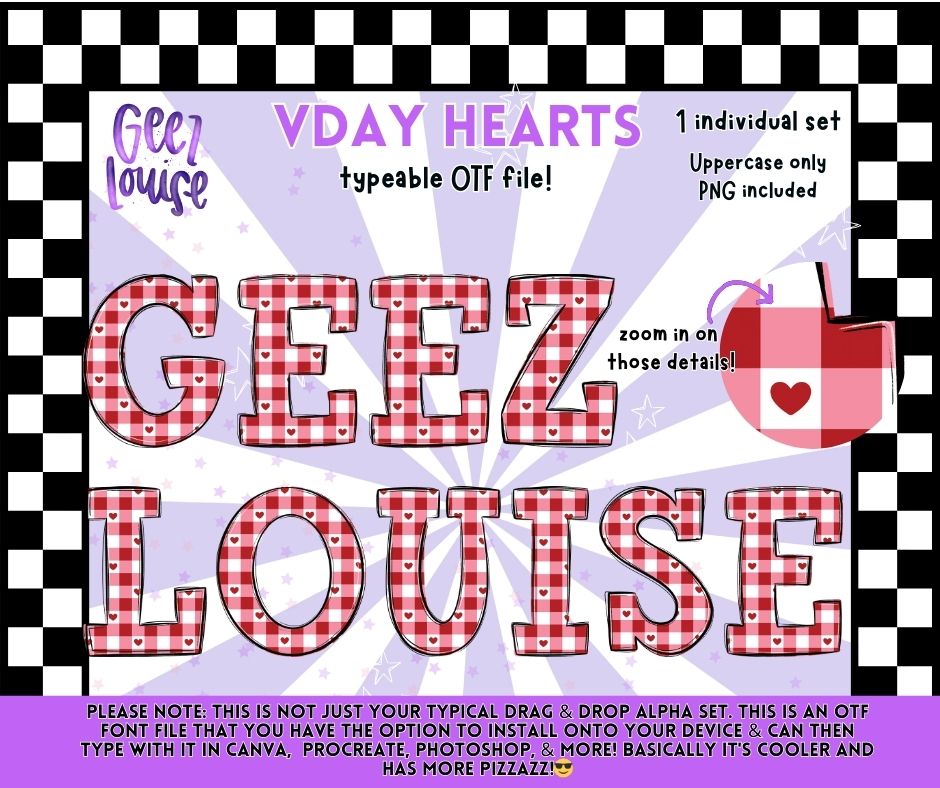
VDAY Hearts Alpha Set | Typeable OTF Font + PNG Letters | Valentine’s Alphabet
Meet your new Valentine’s Day go-to lettering set — VDAY Hearts! 💕
This isn’t your typical drag-and-drop alpha. This is a full typeable OTF font packed with adorable gingham + heart details so you can type your words instantly in Canva, Procreate, Photoshop, and more. No more placing individual letters (unless you want to!).
Styled gingham + heart pattern
Add a little extra pizzazz to your Valentine’s creations! 💖✨